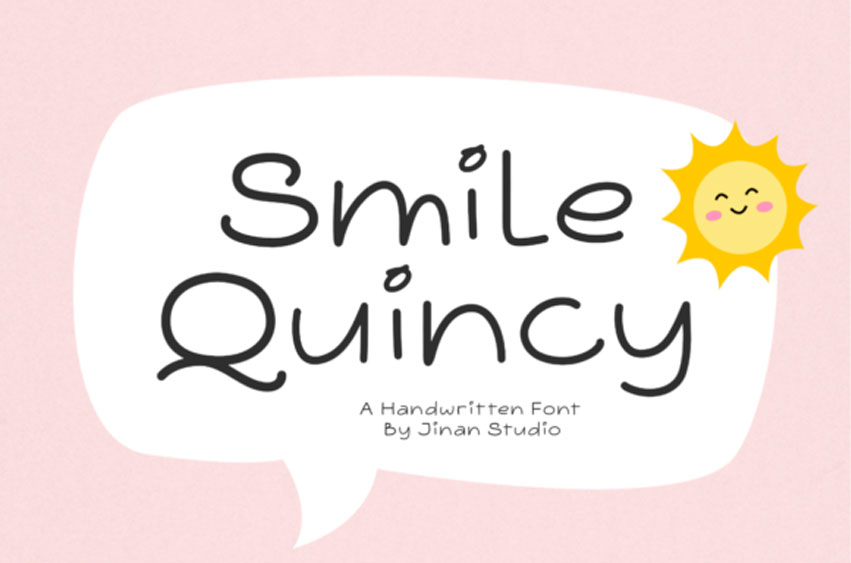
Smile Quincy Font
Smile Quincy Font is a cute and lovely handwritten font that brings warmth and cheer to every design.
With its playful curves and friendly style, this font is perfect for quotes, posters, greeting cards, social media graphics, and more. Its charming handwritten touch makes any project feel personal, cozy, and full of joy.
Let Smile Quincy brighten up your designs with a dose of happiness and creativity!